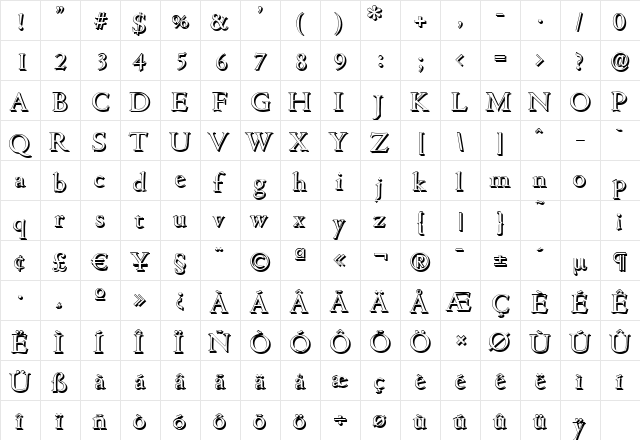
CambridgeShadow Regular Font Preview
CambridgeShadow Regular
CambridgeShadow Regular Font Details
Design Context for CambridgeShadow Typeface
CambridgeShadow brings ornamental detail and strong personality to headlines and identities, where visual impact matters more than quiet functionality.
Font Pairing: Pair with a clean neutral sans-serif for body copy to let CambridgeShadow's character lead without overwhelming the composition.
Pro Tip: Treat CambridgeShadow as the centrepiece of your typographic hierarchy. One strong heading set in a decorative face can carry an entire layout.